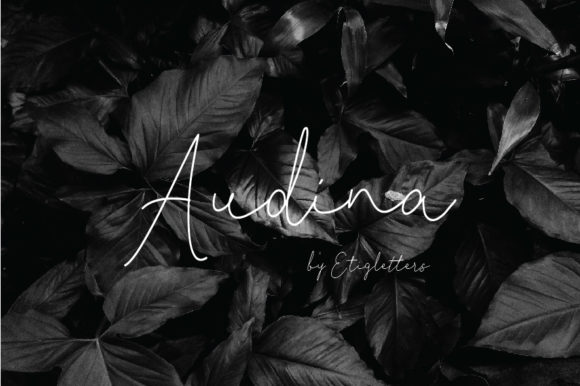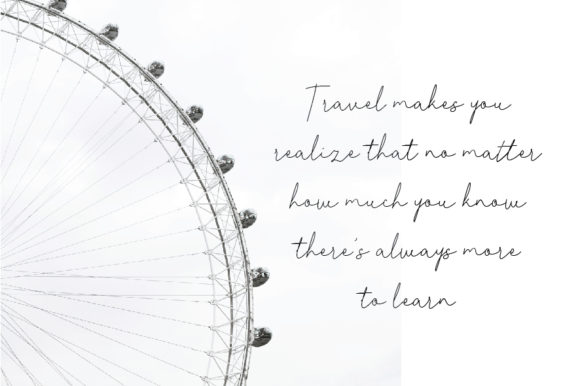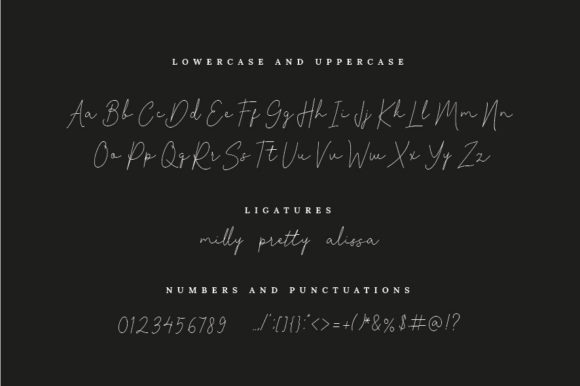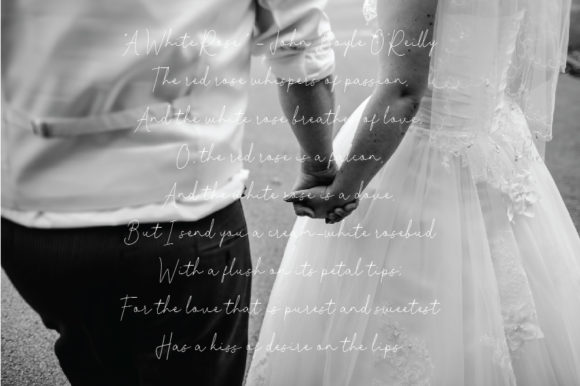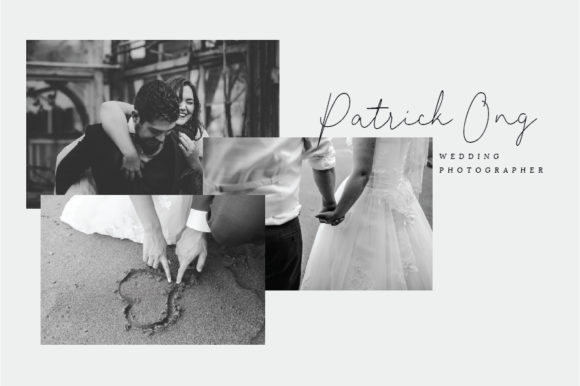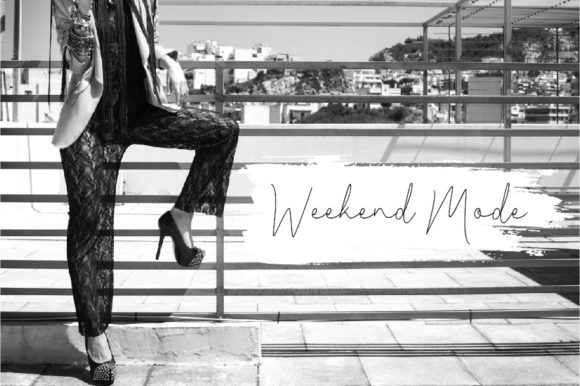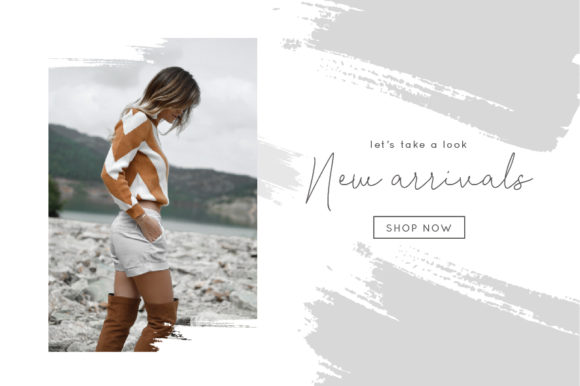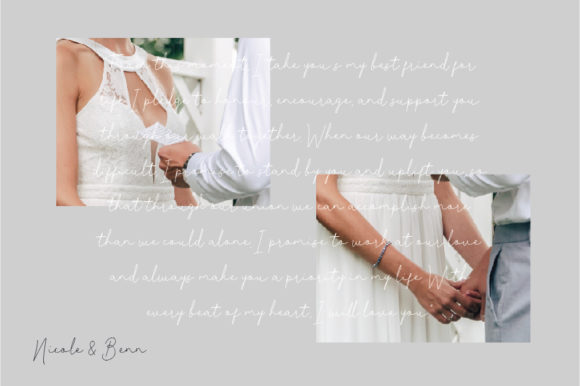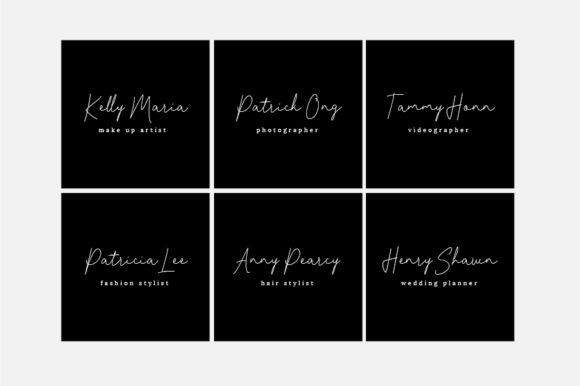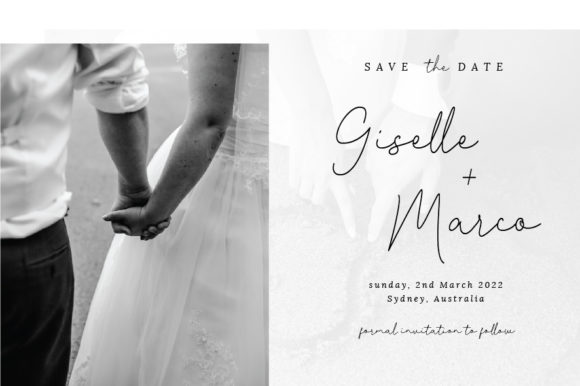
HomeScript FontsAudina Font Script Fonts Audina Font FacebookXPinterestWhatsApp Audina Font Poster 2 Audina Font Poster 3 Audina Font Poster 4 Audina Font Poster 5 Audina Font Poster 6 Audina Font Poster 7 Audina Font Poster 8 Audina Font Poster 9 Audina Font Poster 10 About Audina Font Audina is a stylish and fashionable script, perfect for adding that sweet touch to your next creative project. DOWNLOAD NOW People also explored Growland Font Minimalike Font Sabina Illusion Horizontal A6 A5 Greeting Card Mockup Hanke Font Doughnut Font Birthday Ballon Font Chicken Font Behrens Antiqua 390 0 TagsAudina Font Previous articleYoura FontNext articleGanella Font LEAVE A REPLY Cancel reply Comment: Please enter your comment! Name:* Please enter your name here Email:* You have entered an incorrect email address! Please enter your email address here Website: Save my name, email, and website in this browser for the next time I comment. Personal Use Free Crellia Script Personal Use Free Read more about this font Ayam Bakar Personal Use Free Read more about this font Kitchen Blue Personal Use Free Read more about this font Screengem Personal Use Free Read more about this font BLOG How to Cut Any Font on Cricut: Convert a Font to SVG (Free) Turn any font into a clean SVG so it cuts crisp on Cricut - a quick 3-step workflow using a free font-to-SVG tool. Best Fonts for YouTube Videos: Make Your Thumbnails Stand Out Free vs Paid Fonts: Why Investing in Premium Fonts Is Worth It Using Fonts in Digital Marketing: Tips to Strengthen Your Brand Identity